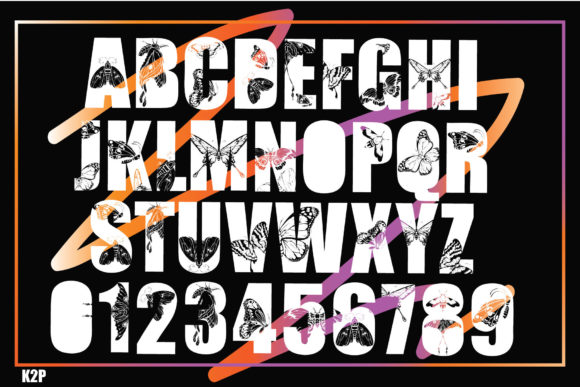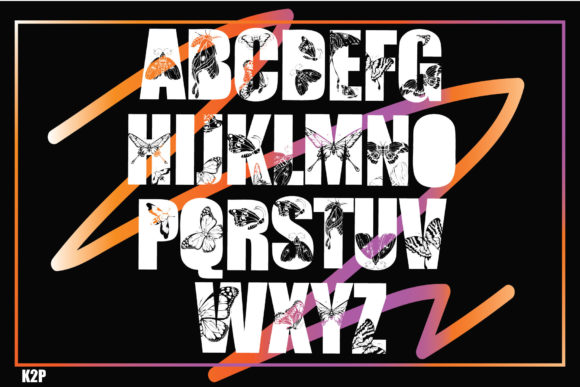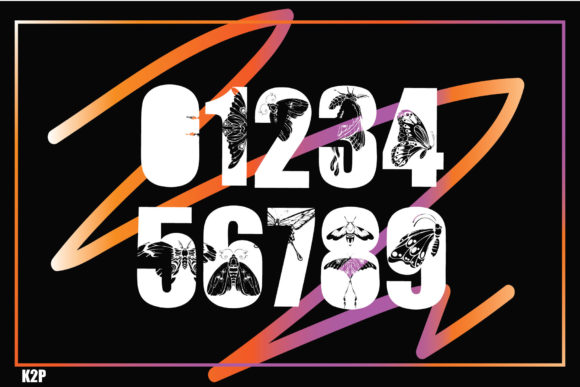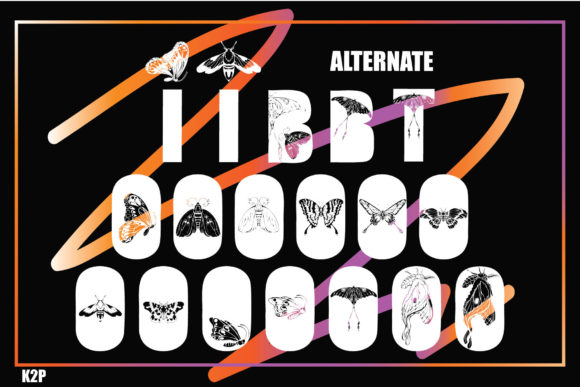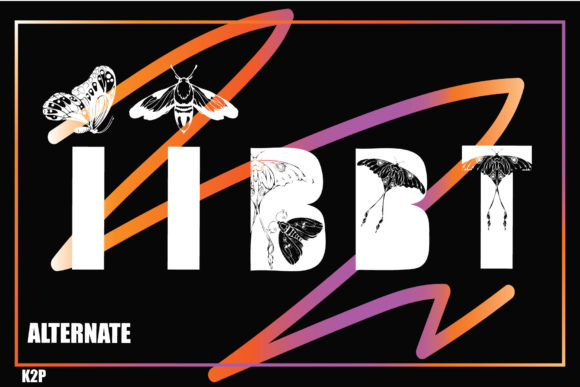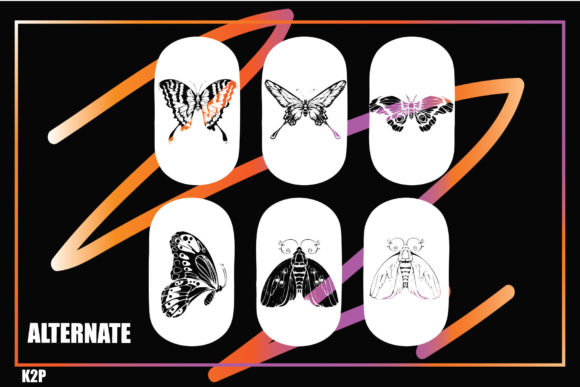
Unleashing the Power of Typography: The Butterfly Effect Font
Have you ever sat in front of your design software, staring at a blank canvas, trying to come up with the perfect font to bring your vision to life? It’s a feeling we’ve all experienced at some point or another. But what if I told you there’s a font that can take your designs from ordinary to extraordinary? Enter the Butterfly Effect Font, a cool, thick lettered, and neat decorative font that’s about to become your new go-to.
With its PUA encoded design, accessing all of the glyphs and swashes is a breeze. This means you can add the Butterfly Effect Font confidently to your favorite creations, and watch as it transforms your designs into something truly unique and eye-catching. Whether you’re a seasoned designer or just starting out, this font is a valuable addition to your toolkit.
Key Features of Butterfly Effect Font
- Font Family: Butterfly Effect comes in a range of 6 fonts, each with its unique characteristics, including Butterfly Effect, Butterfly Effect 2, and more.
- Character Set: Supports a wide range of languages, including Latin, Cyrillic, Greek, and more, with over 500 glyphs.
- Unique Characteristics: Features a unique blend of organic and geometric shapes, creating a distinctive and eye-catching visual effect.
Designer Review: Butterfly Effect Font
The ✨ unique aesthetic of the Butterfly Effect Font is undoubtedly its strongest feature. The combination of delicate flourishes and bold, geometric shapes creates a captivating visual effect that’s perfect for designers looking to add a touch of whimsy to their projects. I particularly appreciate the ✨ extensive language support, making it an excellent choice for multilingual designs.
However, I do have some reservations about the ⚠️ legibility at smaller font sizes. While the font looks stunning at larger sizes, it can become difficult to read at sizes below 14pt. This might be a concern for designers who need to use the font in body text or other contexts where legibility is crucial.
- ⚠️ Limited bold weight options – While the font has a range of weights, the bold options are somewhat limited, which may not be ideal for designers who need a more dramatic effect.
- ⚠️ No italic options – The lack of italic options might be a drawback for designers who prefer to use italic text for emphasis or stylistic purposes.
Overall, I think the Butterfly Effect Font is a great choice for designers looking to add a touch of personality to their projects. While it may have some limitations, its unique aesthetic and extensive language support make it a valuable addition to any design toolkit.
The Butterfly Effect Font is perfect for creative projects, such as:
- Graphic design
- Social media posts
- Print materials (e.g. business cards, brochures)
Remember to use the font in moderation to avoid overwhelming your design.